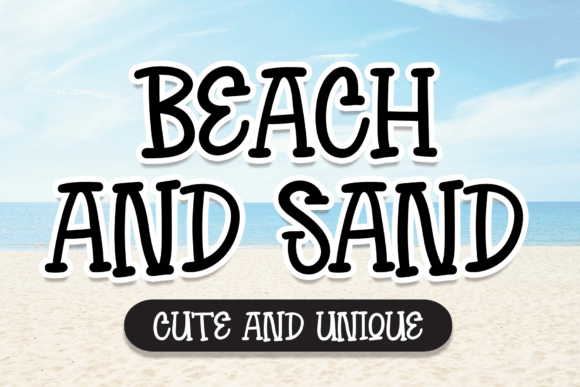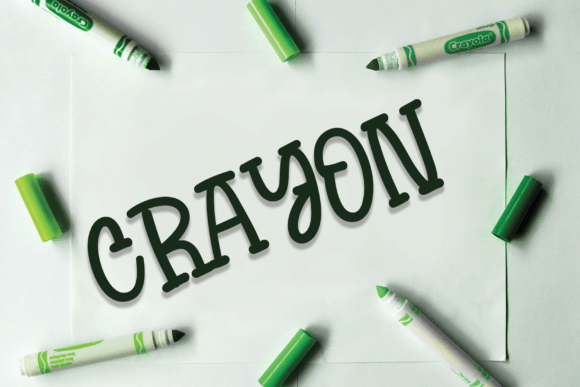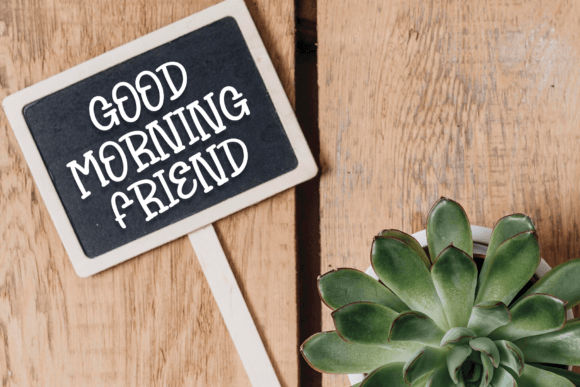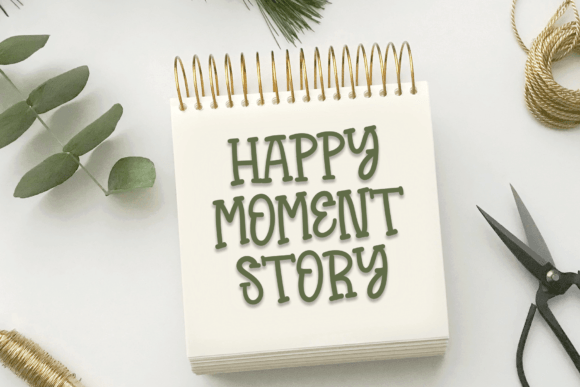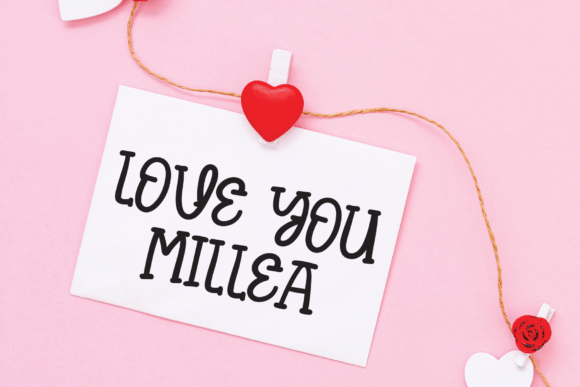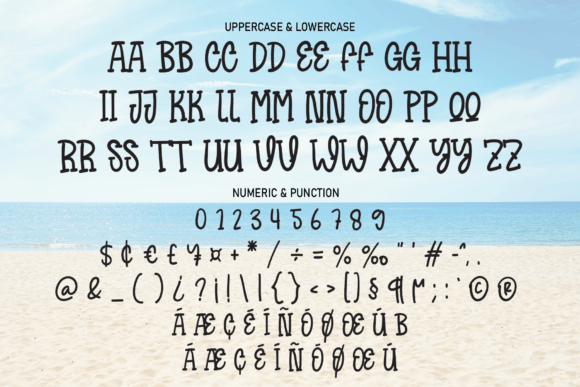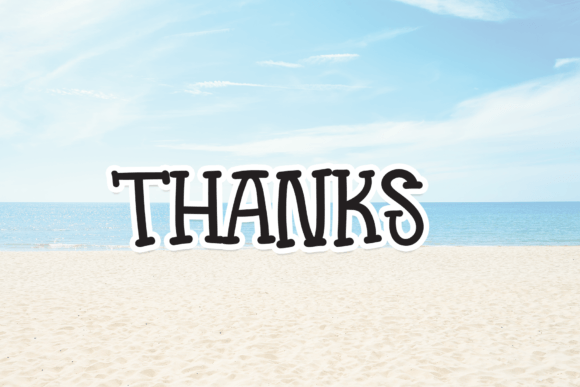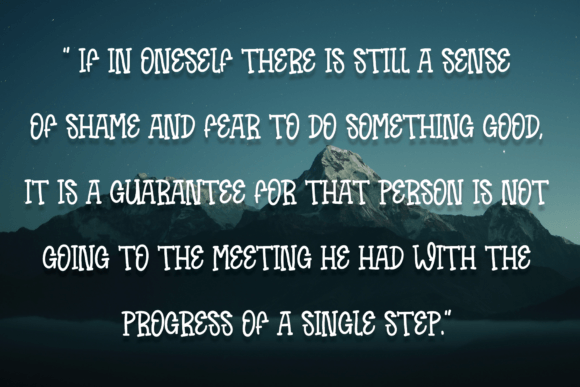
Beach and Sand Font
About Beach and Sand Font
Beach and Sand is a friendly and quirky handwritten font. Its cheerful personality is perfect for creating whimsical and cute designs.